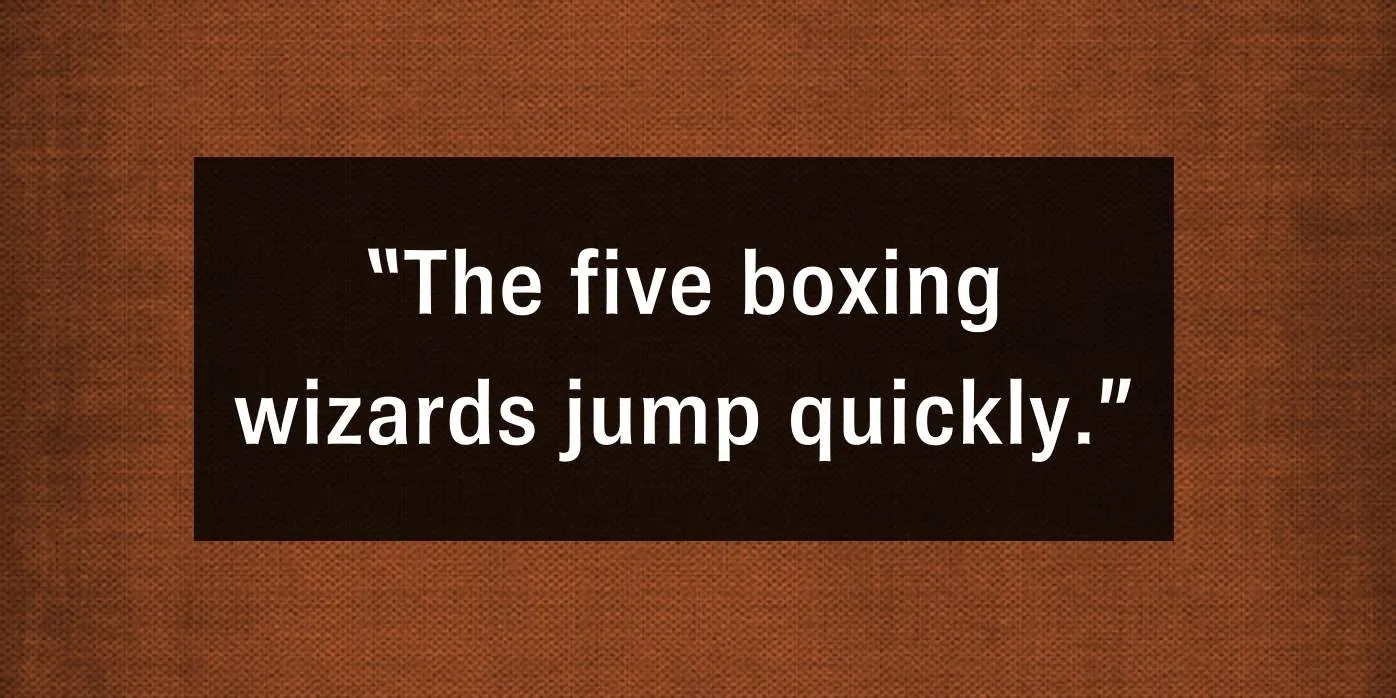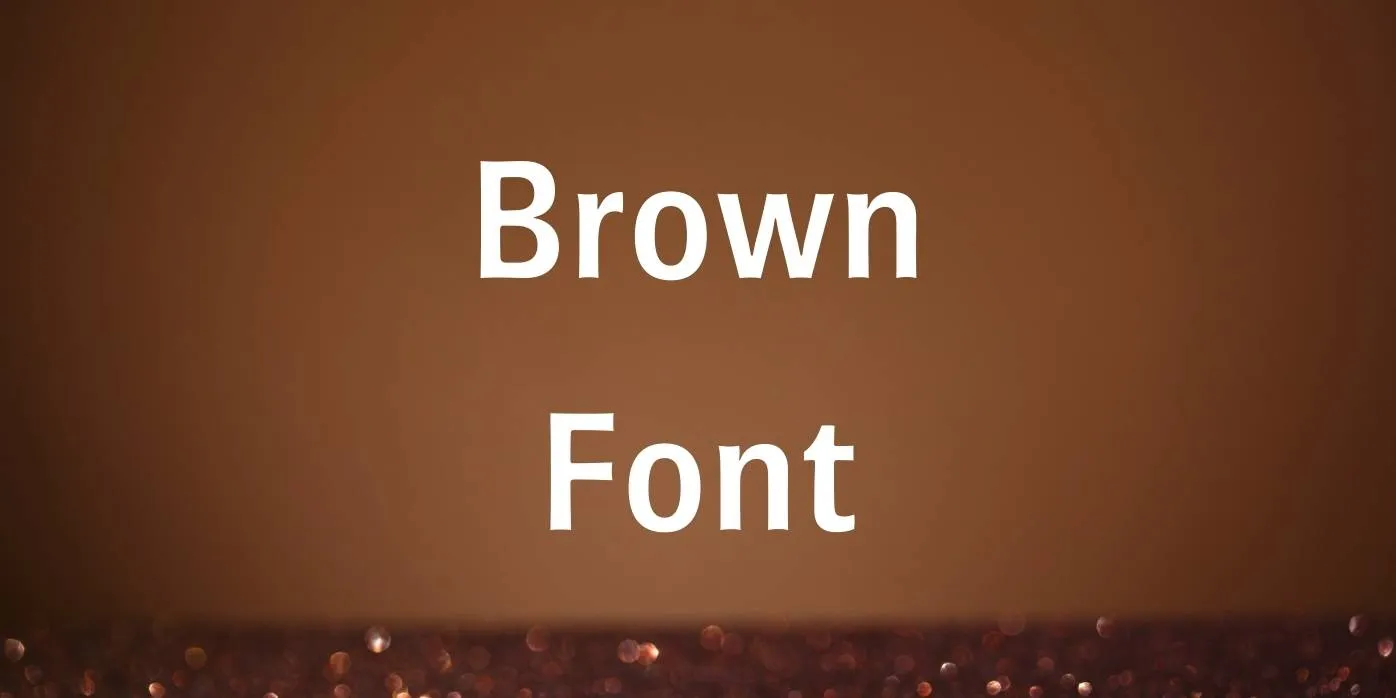
Brown Font
Today, we are going to present a very marvelous typeface that goes by the name Brown Font. This Sans Serif typeface was designed by Mr. Aurèle Sack.  This typeface has been created with the help of a font editor named Font Creator. This software is very easy to use and it supports a wide variety of languages.
With this program, you can easily create your own fonts without any hassle. This typeface is perfect for those who are looking for a vintage feel in their designs. The Brown Font comes in two styles: Regular and Distressed. Each style contains upper and lowercase characters, numerals, and punctuation marks.
Its alternative steam logo font is best for different designs. The character set supports Latin, Cyrillic, and Greek languages. This tremendous font is a great choice for branding, advertising, logos, headlines, and much more. If you are looking for a unique Sans Serif typeface, then it is suitable for your designs.